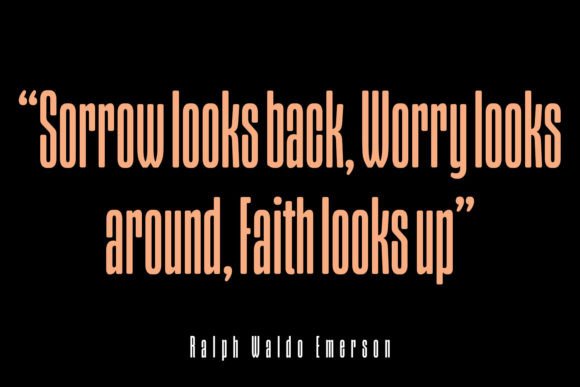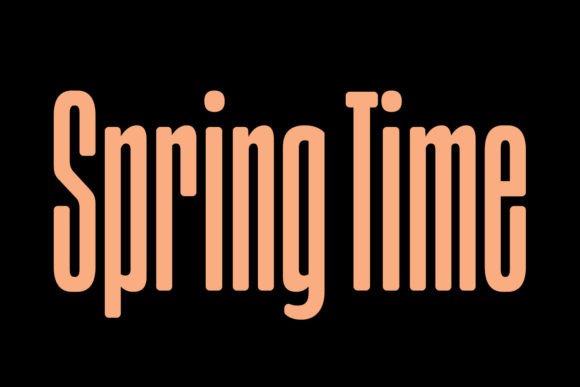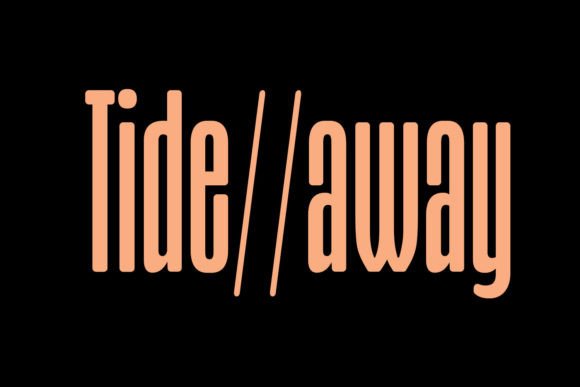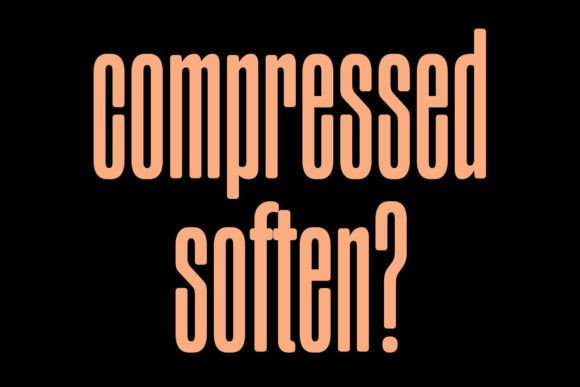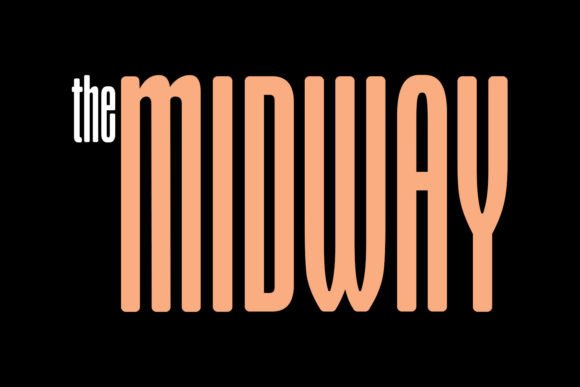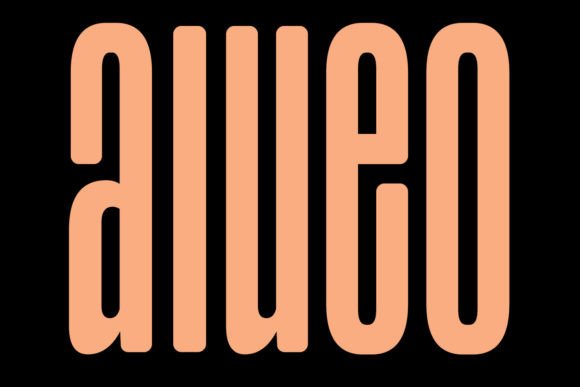
Introduction to Kareen Font
As designers, we’ve all been there – staring at a blank canvas, trying to bring our creative vision to life. But sometimes, all it takes is the right font to spark that initial spark. For me, it was the moment I stumbled upon Kareen Font, a soft rounded compressed display font that instantly captivated me with its modern and casual charm.
With its versatility and high quality design, Kareen Font has become an essential design resource for creatives working on a wide range of projects. Whether you’re designing a logo, creating a social media graphic, or working on a high-profile campaign, this font is sure to elevate your visual identity and make your design stand out.
What sets Kareen Font apart is its ability to work seamlessly with transparent backgrounds, making it a perfect choice for designers who want to create stunning visuals without the hassle of complicated design elements.
Key Features of Kareen Font
- High-quality design resource ideal for creative projects and presentations
- Features a transparent background, allowing for seamless integration with any design element
- Designed with a unique, modern aesthetic, making it perfect for contemporary design projects
Honest Review: Kareen Font
I recently had the chance to work with the Kareen Font for a creative project, and I must say, I was quite impressed. This free download is a great addition to any design resource, offering a unique and stylish aesthetic.
What works well: ✨ The Kareen Font is incredibly versatile, making it suitable for a wide range of design applications, from logos to typography-based artwork. The high quality of the font ensures that it looks crisp and clean, even when scaled up or down.
One of the standout features of this font is its transparent background, which makes it easy to use as a design element in its own right. This adds a level of creativity to the design process, allowing users to experiment with different backgrounds and compositions.
- What I liked:
- High quality and crisp design
- Transparent background for added creativity
Overall impression: The Kareen Font is a solid choice for designers looking to add some flair to their creative projects. While it may not be suitable for every design application, it’s definitely worth checking out for those looking to experiment with a unique and stylish font.
Kareen Font is a high-quality design resource that offers a unique and elegant touch to any creative project. This free download is perfect for designers and non-designers alike, providing a versatile font that can be used in various applications.
Tips for Getting the Most Out of Kareen Font
Some tips for getting the most out of Kareen Font include experimenting with different font sizes and styles, using it in combination with other design elements, and taking advantage of its transparent background to create unique and eye-catching designs.
Common Use Cases for Kareen Font
Kareen Font is commonly used in a variety of design projects, including business cards, brochures, and website headers. Its elegant and sophisticated design makes it perfect for use in high-end design projects and professional settings.